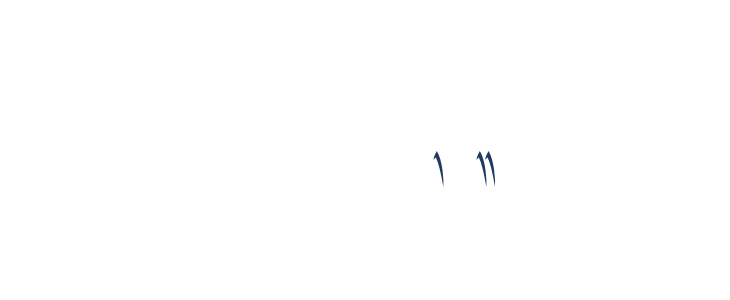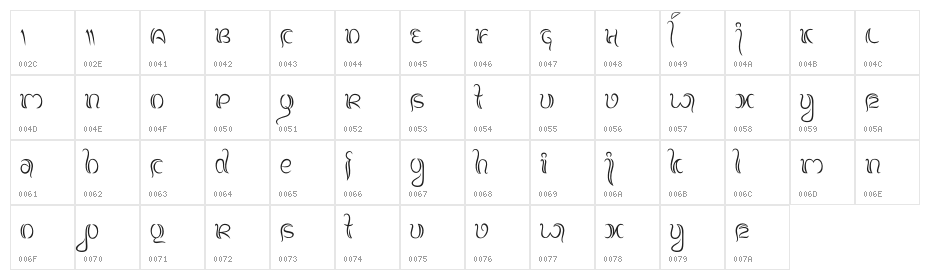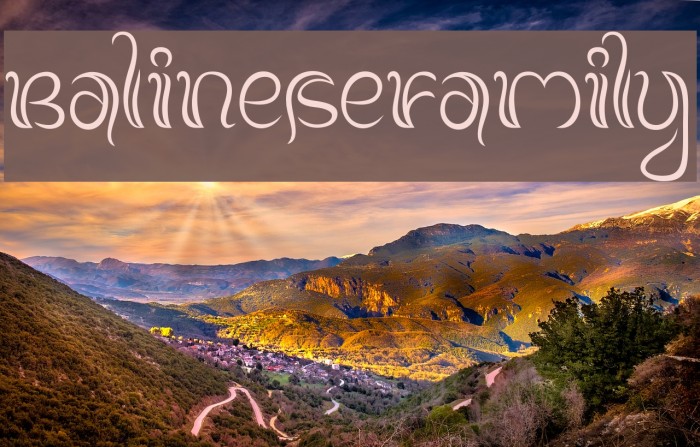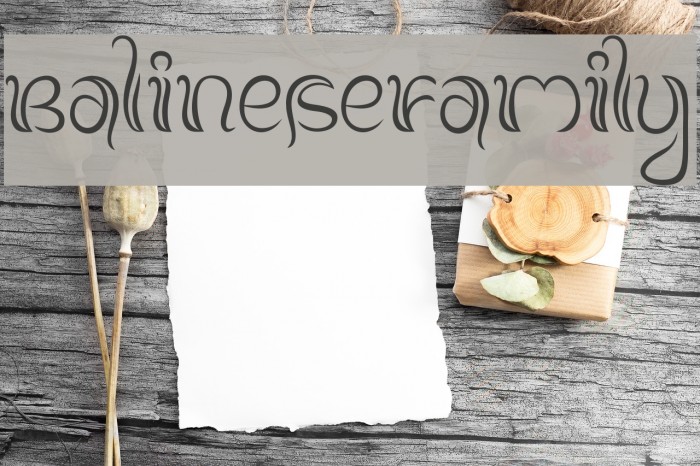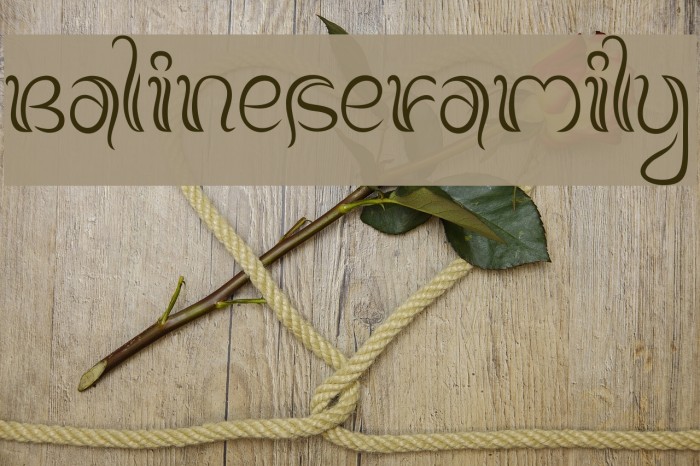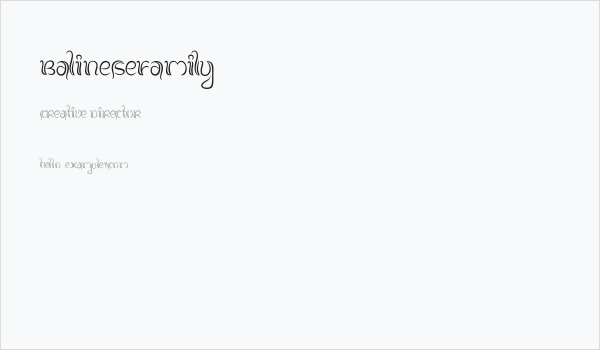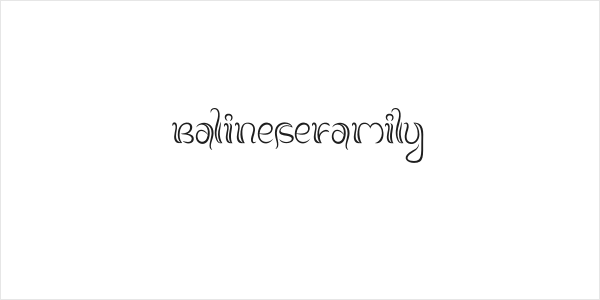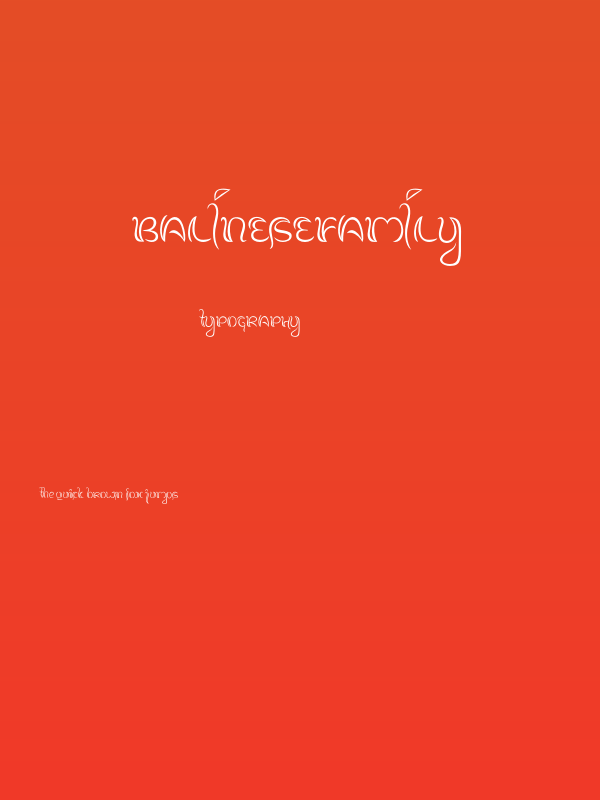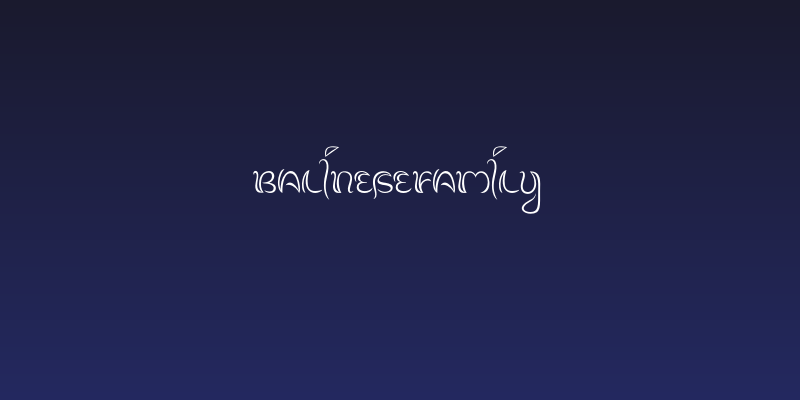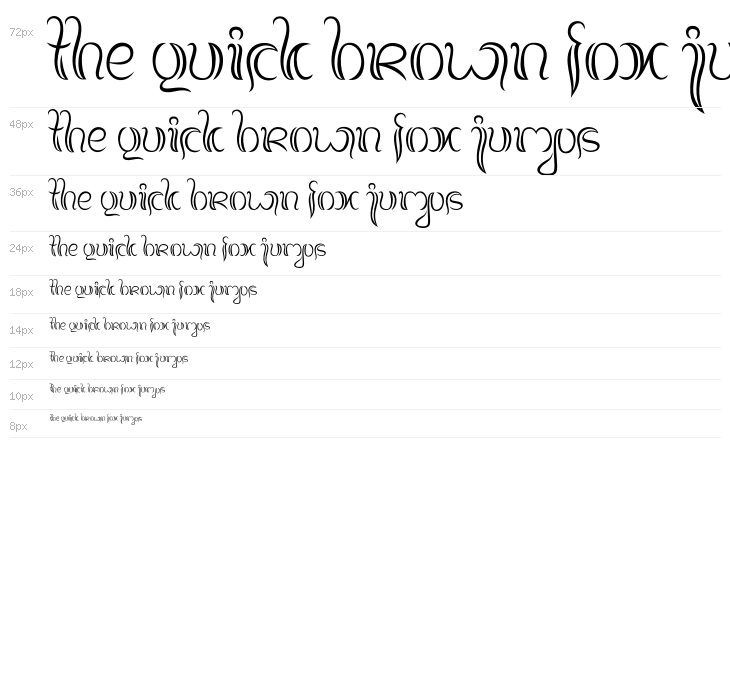
BalineseFamily Font
BalineseFamily Description
This font features an intricate and artistic design, reminiscent of traditional Balinese script. The characters are adorned with elegant curves and flourishes, giving them a decorative and exotic appearance. The uppercase and lowercase letters maintain a consistent style, with unique embellishments that add a sense of movement and fluidity. The numbers are similarly styled, with a distinctive flair that complements the overall aesthetic. This font's ornate design makes it suitable for projects that require a touch of cultural richness and artistic expression.
| Proposed Projects | Ideal for cultural event posters, artistic invitations, logo design, and decorative headings. |